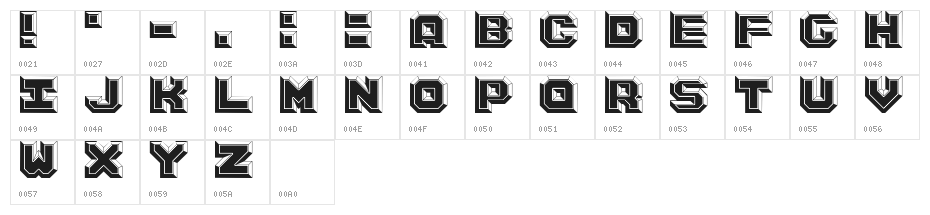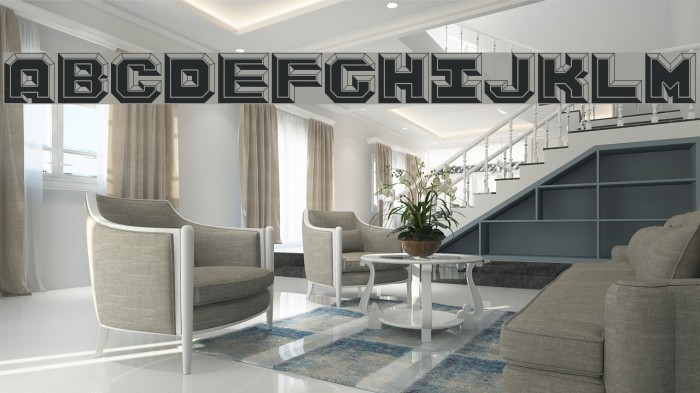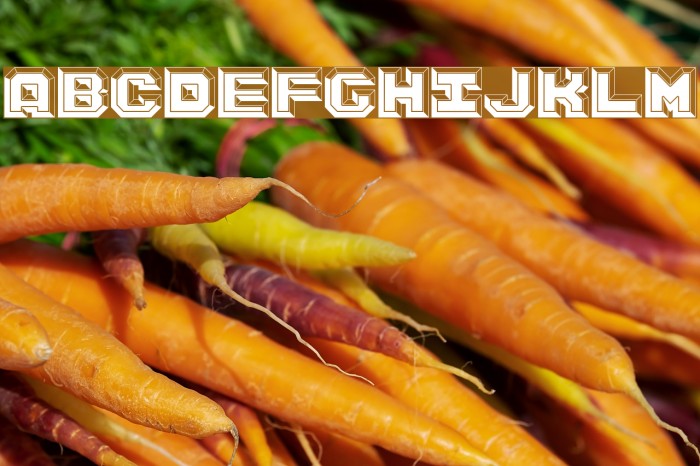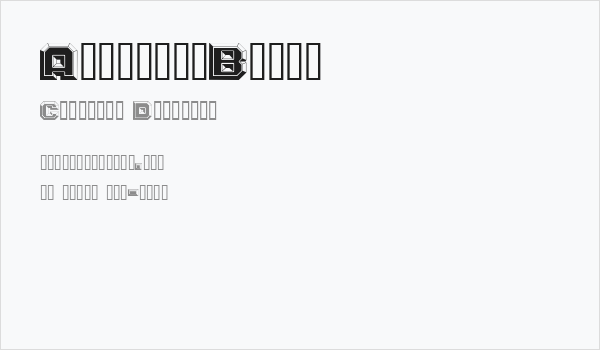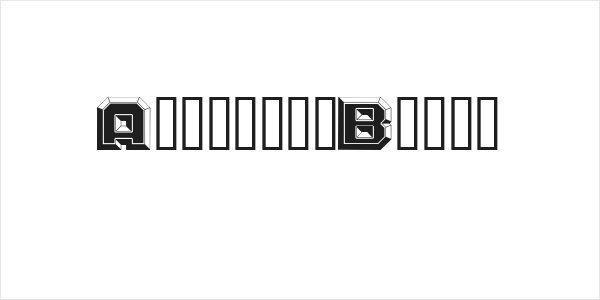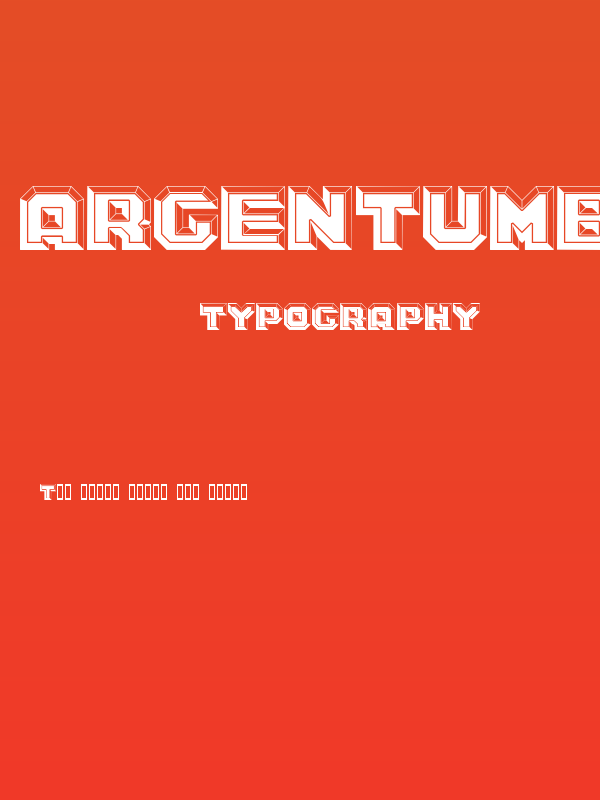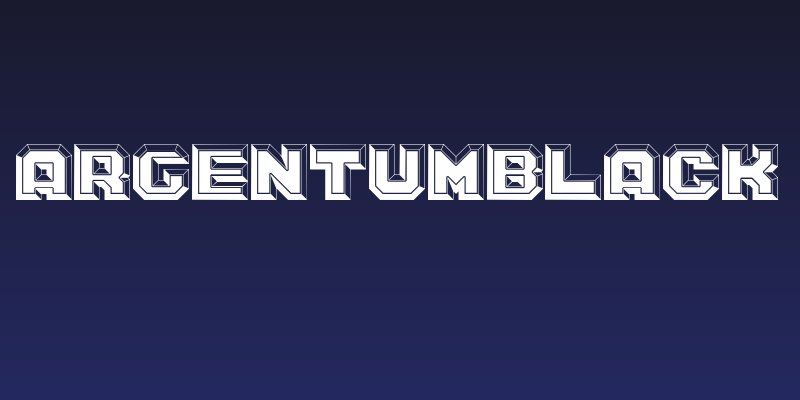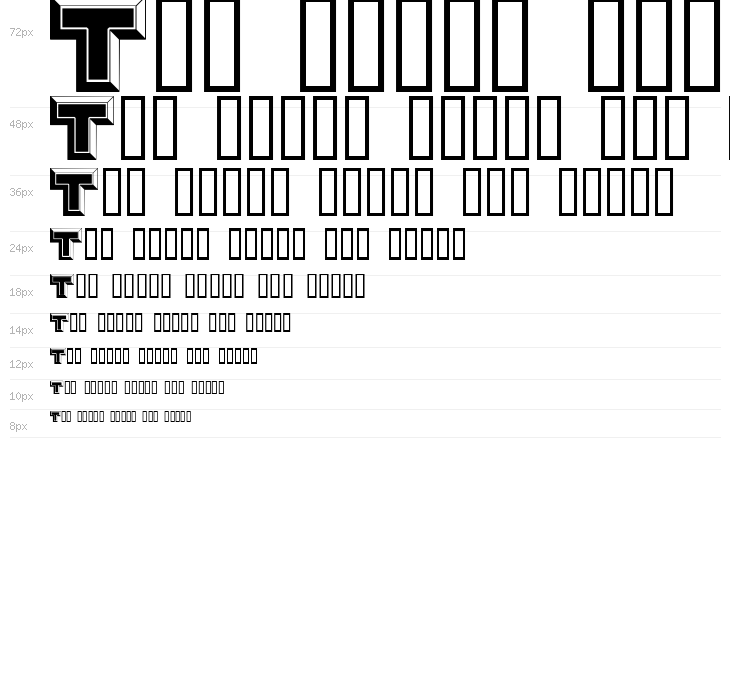
ArgentumBlack Font
ArgentumBlack Description
This font features a bold, three-dimensional design with a strong presence. Each character is outlined with a thick black border, creating a striking contrast against the white interior. The geometric shapes and sharp angles give it a modern and industrial feel, making it stand out in any design. The font's blocky structure and shadow effect add depth and dimension, making it ideal for eye-catching headlines and titles. Its unique style is both futuristic and retro, offering versatility in various creative projects.
| Proposed Projects | Ideal for posters, logos, video game titles, and any project requiring a bold, standout typeface. |